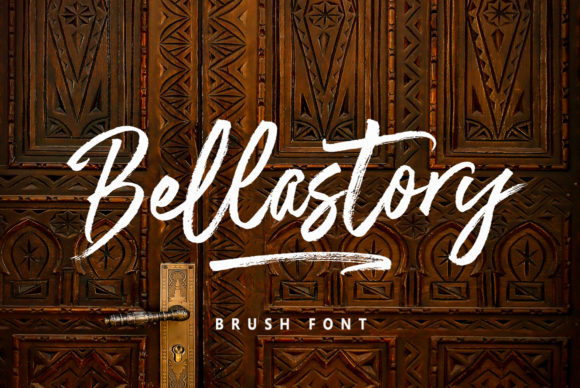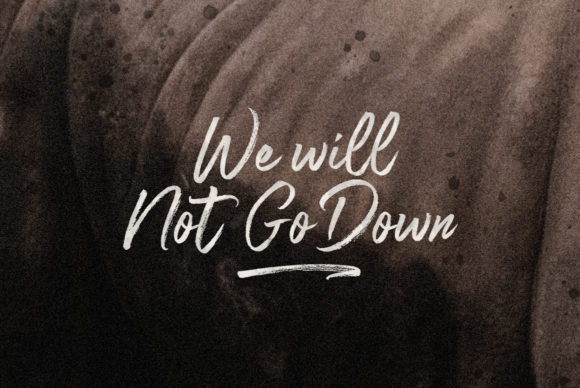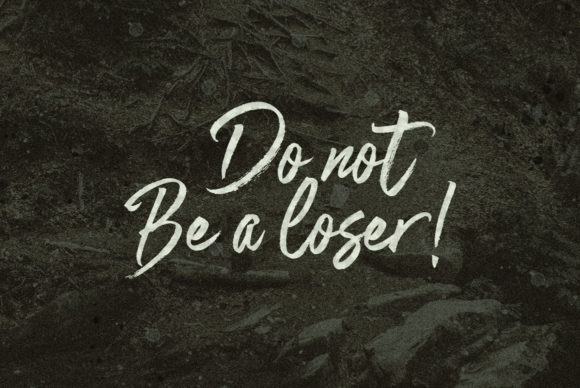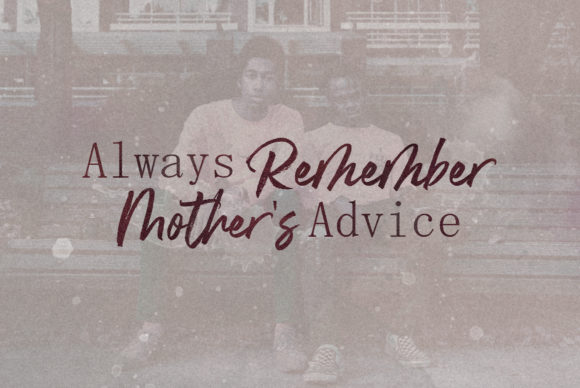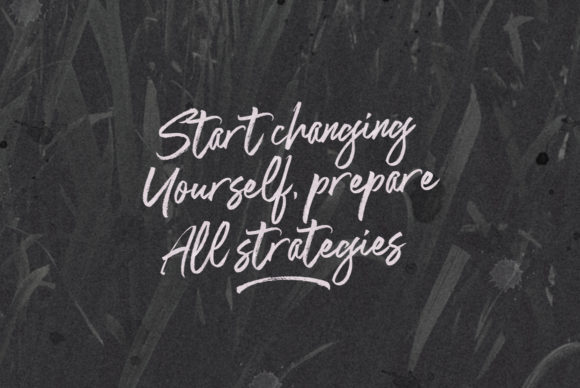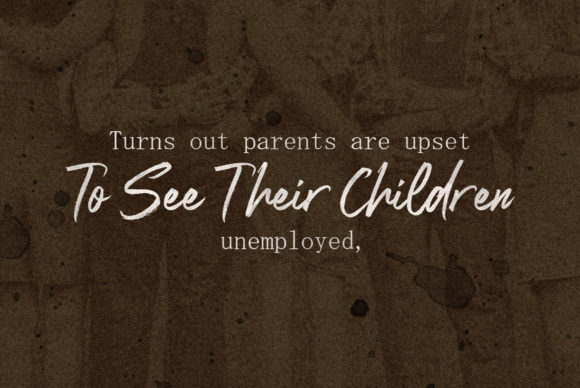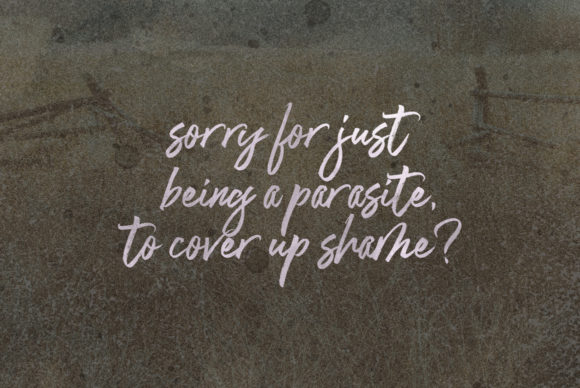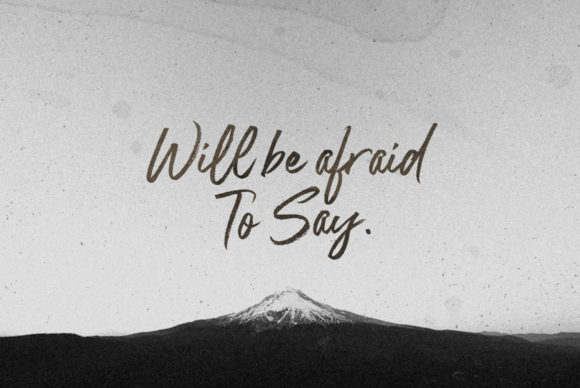
Bellastory Font
About Bellastory Font
The Bellastory is a striking brush font. It was intentionally made with a rough brush, so that it has the perfect scratch character. It includes amazing swashes to add to your designs.